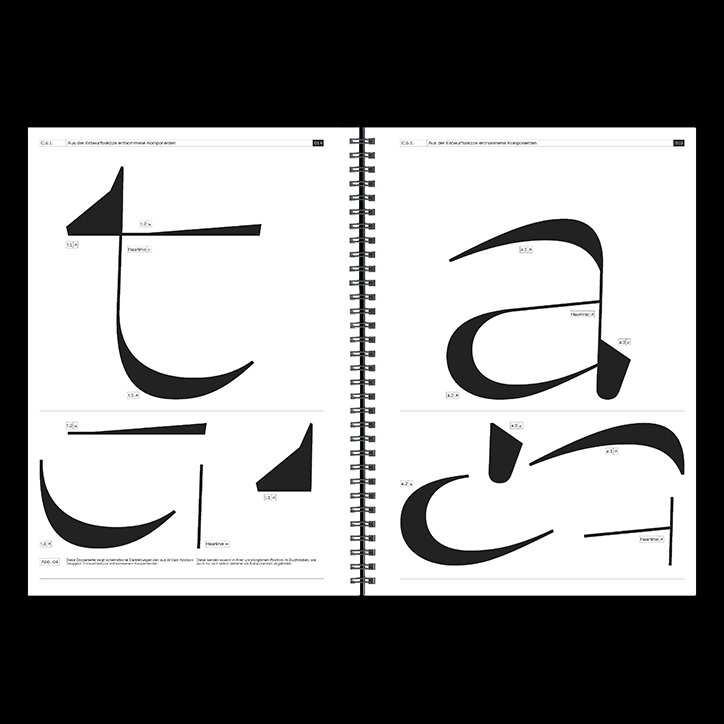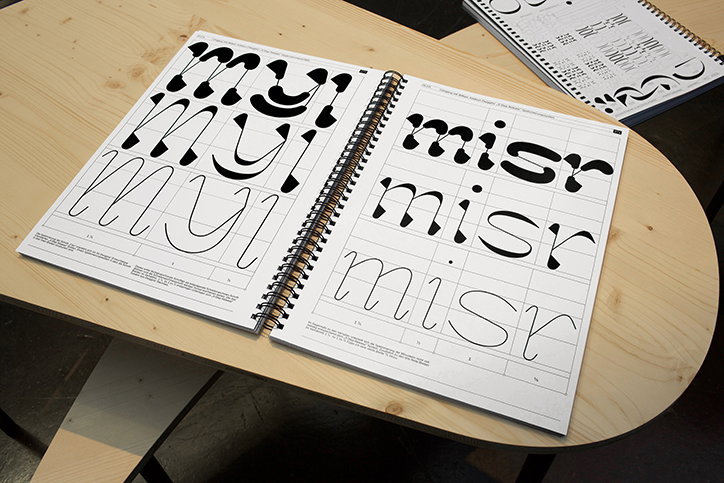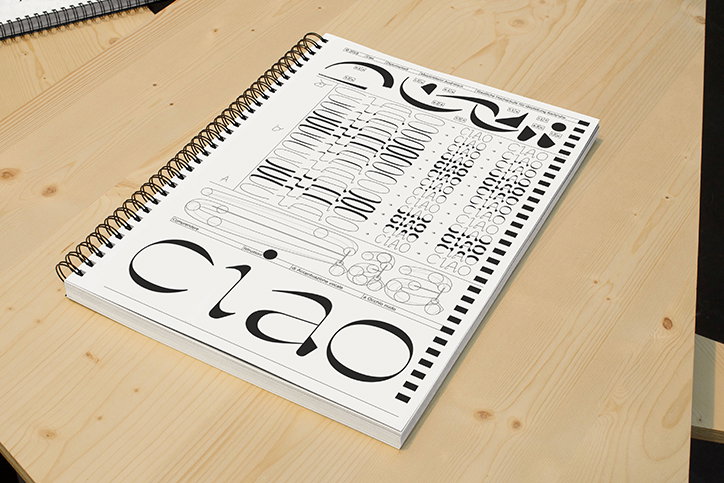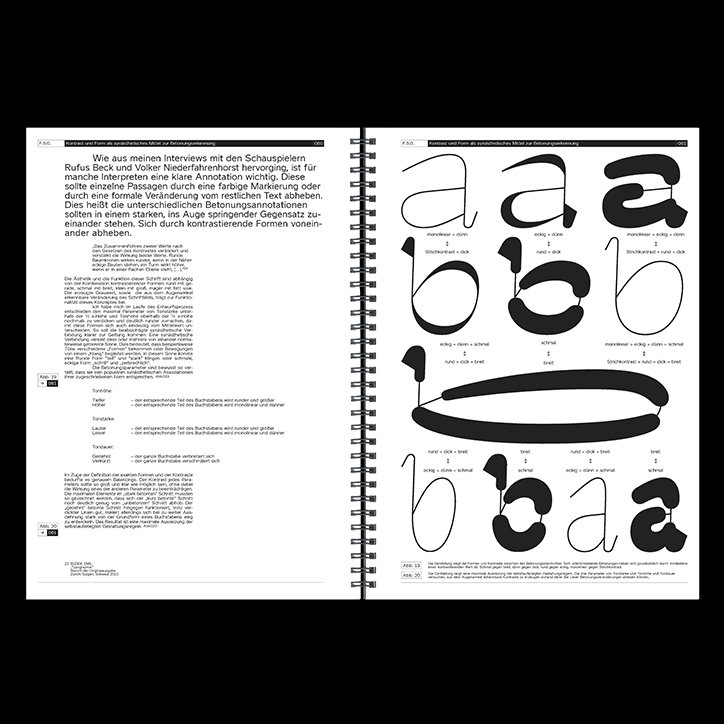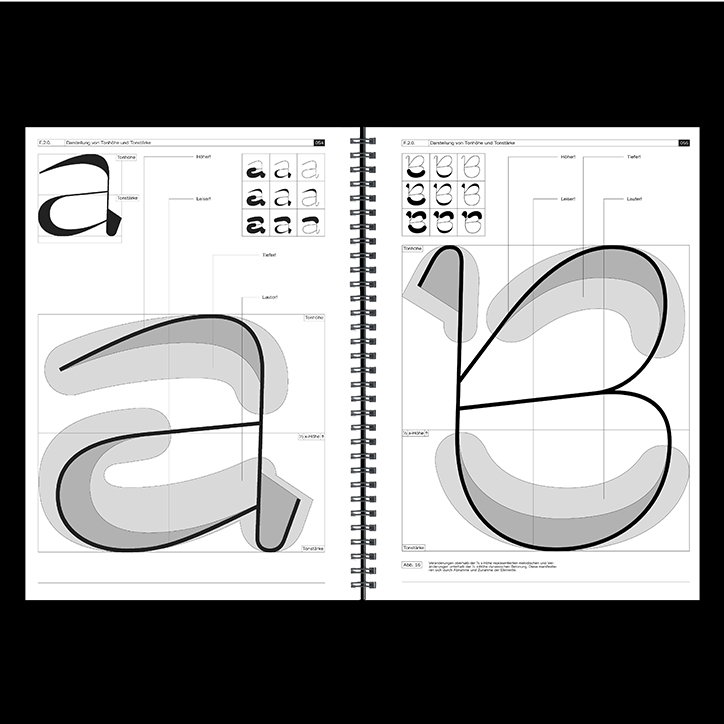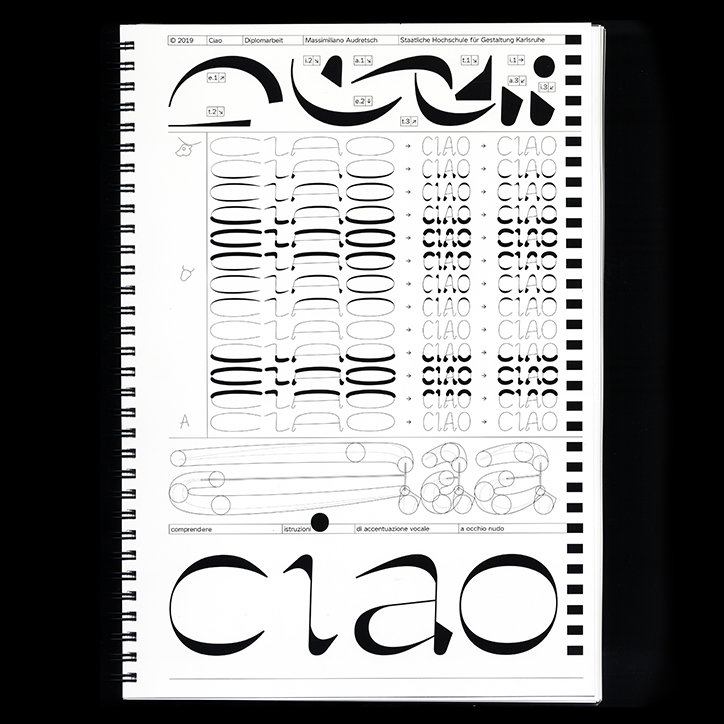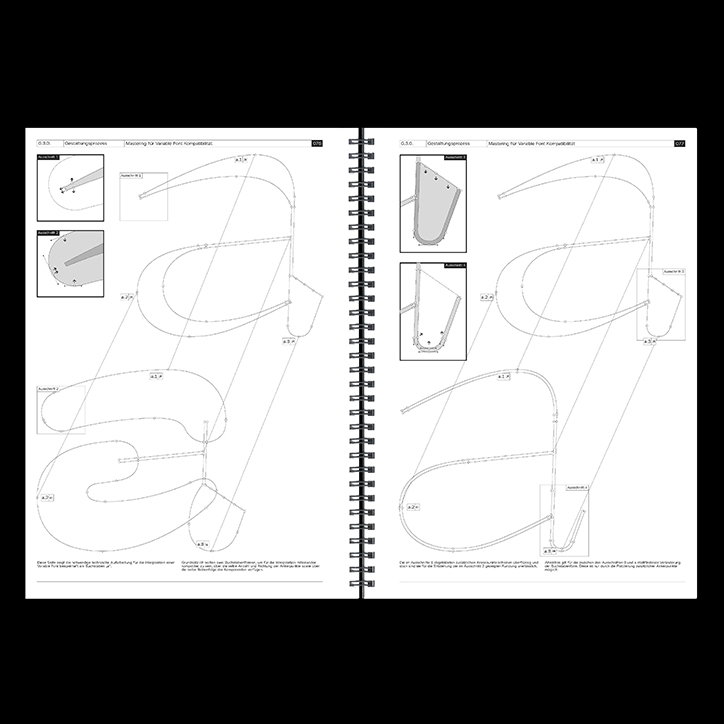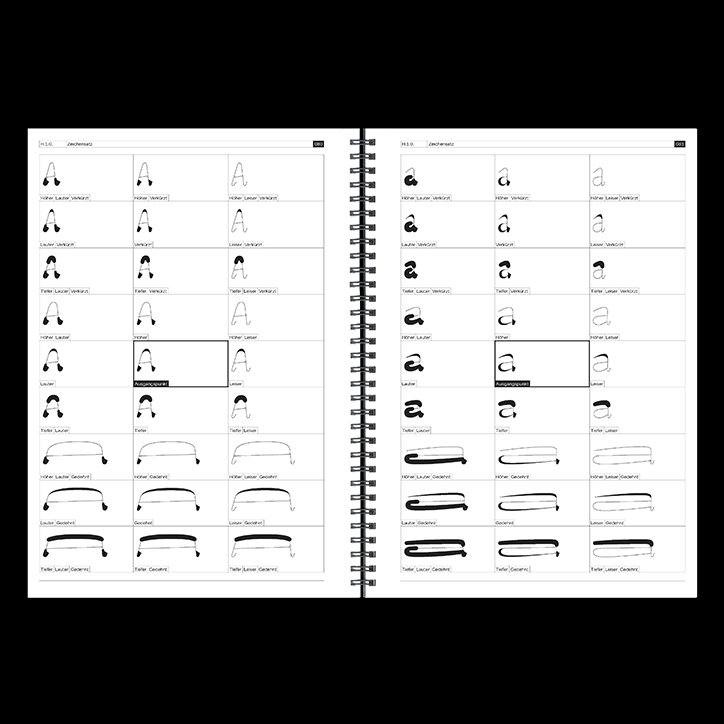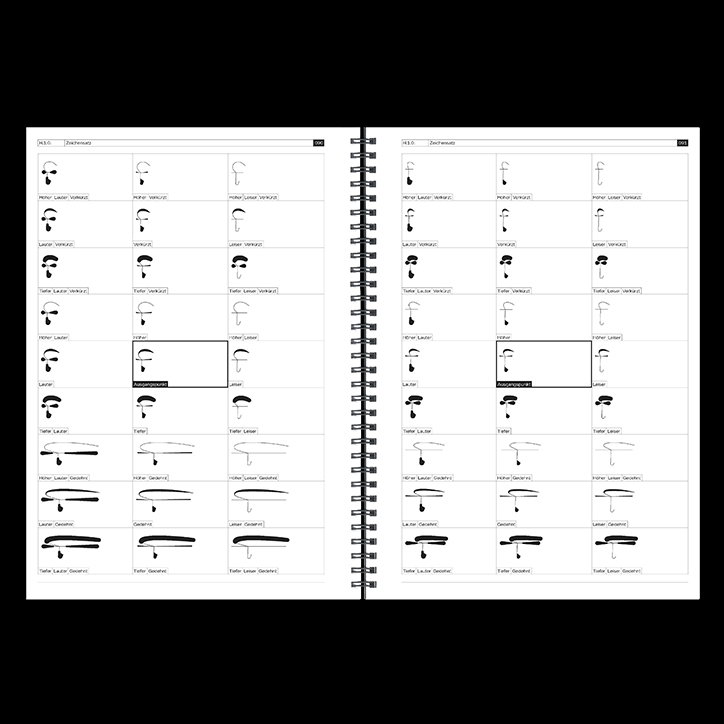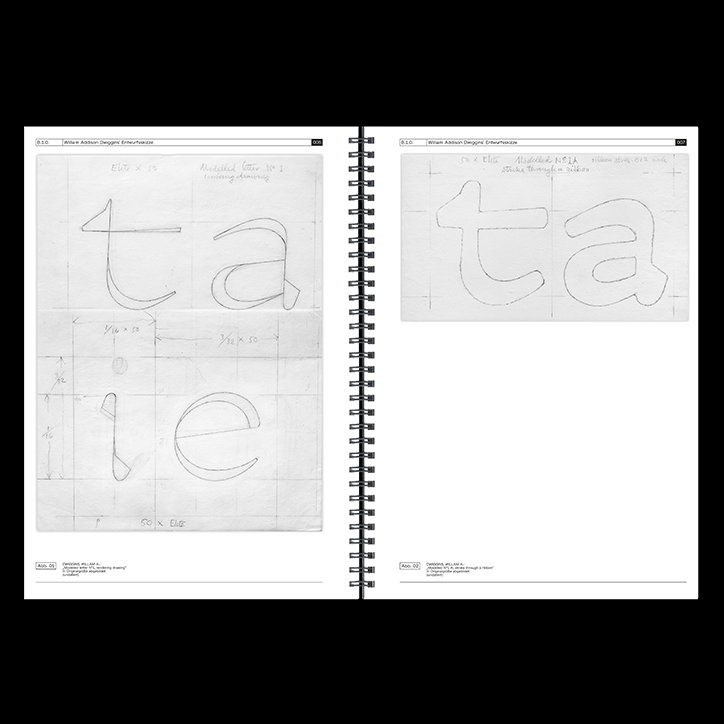
Typeface Ciao communicates auditive intonations of the spoken word
“Reading and writing text, whether on screen or in print, has never been as widespread as it is now,” says Massimiliano Audretsch. The German-Italian graphic and type designer has recently completed a postgraduate degree from Karlsruhe University of Arts and Design. In his graduate project Ciao, he explores the formulaic compositions behind a letterform and the societal roles it consequently shapes. Designing a publication, a typeface and some installations to expand on the matter, Massimiliano talks us through the ins and outs of Ciao and the phonetic language code he’s devised as a result.
“Every letter of the Latin alphabet has a well-defined form which is associated with one or more sounds within each individual language," says the designer. Though we consume vast amounts of content from reading our phonetic alphabet, languages formed of Latin glyphs have no intonations in pitch attached to the written language, unlike the written Chinese language for example.
For his thesis, Massimiliano has designed a conceptual typeface which includes the intonation of how it is spoken. Naming it Ciao as an acronym for “Comprendere Istruzioni di Accentuazione vocale a Occhio nudo”, the phrase roughly translates as “perceiving intonation with your eyes”. Originally inspired by the historic pencil sketches of the American typographer and puppet designer William Addison Dwiggins, Massimiliano was first attracted to the individual elements of each carefully drawn letter, as well as their unconventional shape connected only by hairlines.
“No repetitive pattern is recognisable," the designer adds on the pencil designs. “Each letter follows a self-contained principle. I went onto contact Bruce Kennett (current administrator of W. A. Dwiggins’ estate) and I found out the sketch is probably a technical draft for a typewrite head, not even a font. It’s just a guideline for finding a form.”
Massimiliano Audretsch: Ciao
Drawn to the concept of “something being the instruction for something else," Massimiliano celebrated how sketched renders of a typewriter head are highly technical forms that have to undergo a specific amount of steps before becoming a letter. Adopting this step-by-step principle for his own typeface, the designer uses this method to expand on the Latin alphabet, adding a visual system of intonation to denote the tone duration of a sound, as well as the tone strength and change in pitch. While these three factors are common intonation parameters in linguistics, “the letters are designed to give both instruction and a meaning to the intonation of syllables through written language," Massimiliano says on his design.
Designing three parameters for each of the three variables of intonation (duration, dynamism and melody), Ciao is an extensive piece of work showcasing 27 different kinds of intonation for each letter of the alphabet. Containing more than 1400 glyphs for just the basic upper and lower case alphabets alone, this sizeable project is encapsulated in a 150-page document, designed by Massimiliano as well of course.
Fundamentally communicating the emphasis of a word as well as its phonetic sound, Ciao is a pretty spectacular project to wrap our heads around. Not only does Massimiliano present his research, design process and final typeface within one publication, he also creates two video works and an interactive installation piece which demonstrates the multitude of variations within the typeface through sound, print and interaction design. Testing his designs on professional speakers including those recorded for Harry Potter readers for the German audiobooks, Massimiliano eventually assessed that “the physical power of speech and the intellectual understanding of a text are connected to one another like food and digestion.” All in all, this has led to the crucial design concept of Ciao which above all, translates auditive aspects of the spoken word through a typeface.
Massimiliano Audretsch: Ciao